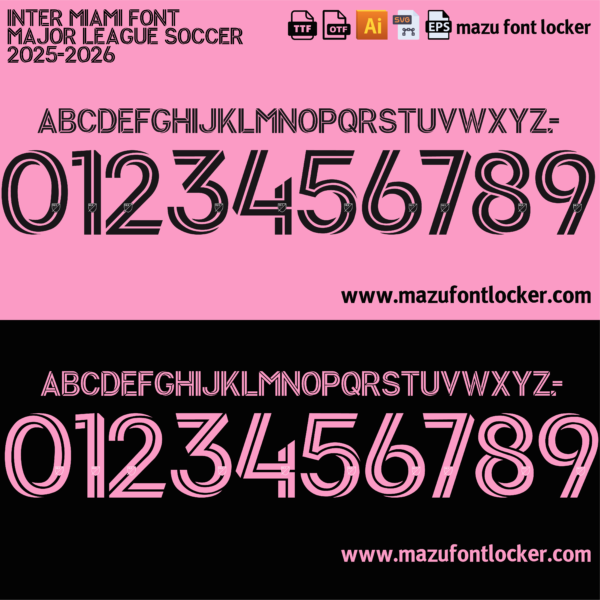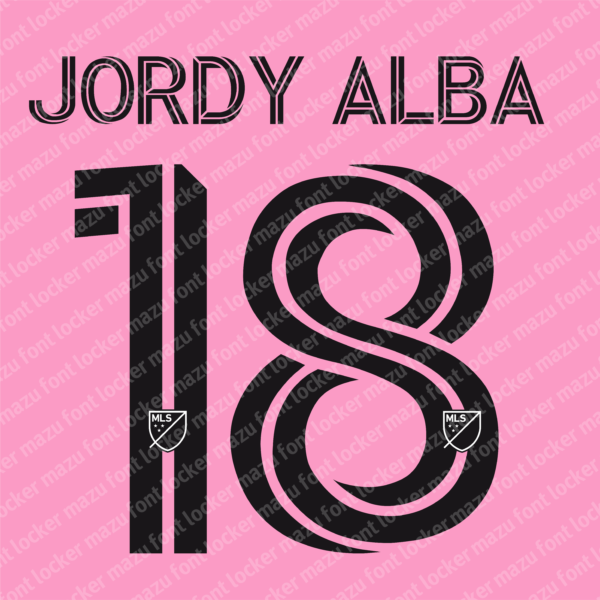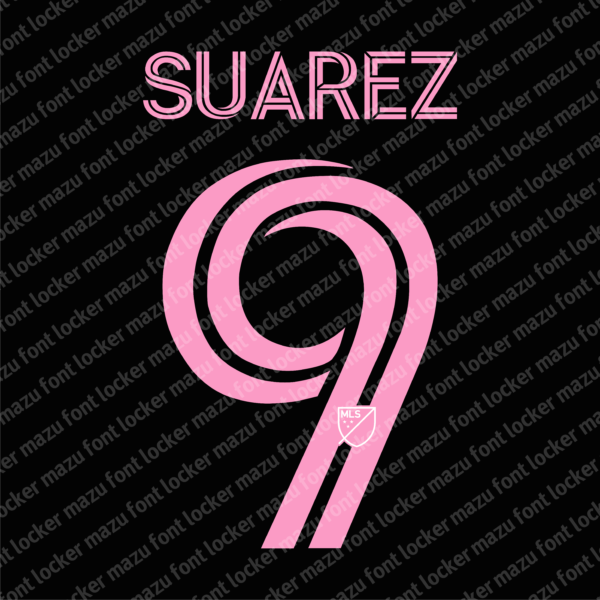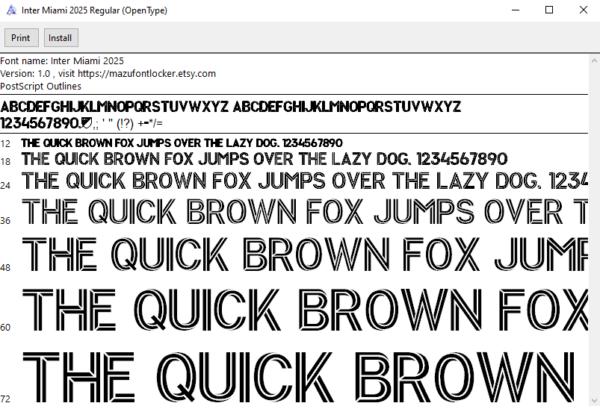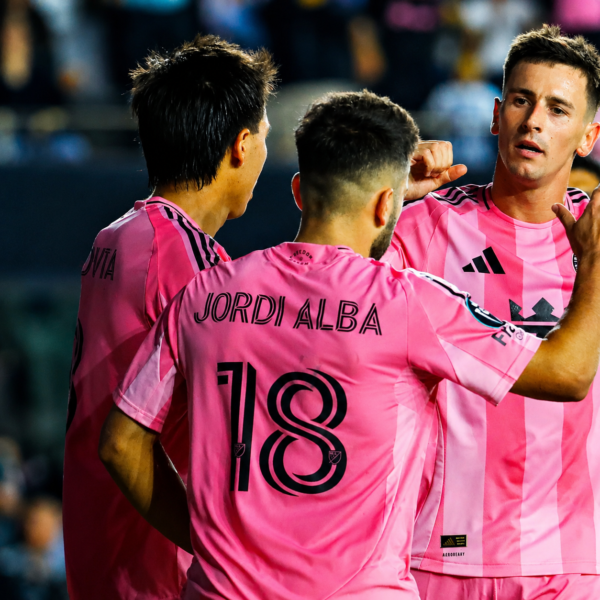
Inter Miami 2025-2026 Font Vector – Epic Messi Masterpiece
Download Inter Miami 2025-2026 Font now and unleash the unstoppable energy of the most exciting team in MLS. This premium Inter Miami 2025-2026 Font perfectly captures the bold, sleek, and ultra-modern typography from Inter Miami’s dominant 2025-2026 season.
Designed with razor-sharp precision, Inter Miami 2025-2026 Font radiates pure power, explosive flair, and the legendary spirit of Lionel Messi and the squad that redefined American soccer. Every letter and number reflects the vibrant pink and black identity, relentless attacking style, and championship mentality that lights up the stadium every matchday.
Inter Miami 2025-2026 Font Vector
🔥 Inter Miami 2025-2026 Font Features
- Authentic 2025-2026 Inter Miami jersey lettering style
The authentic lettering style helps recreate the classic look of the Inter Miami 2025-2026 kit with professional accuracy.
Unlike generic jersey fonts, this set is meticulously designed with an uncompromising focus on absolute authenticity and razor-sharp accuracy. Every intricate detail is faithfully recreated from the original match lettering style used during the Inter Miami 2025-2026 season, empowering designers and collectors to create stunningly realistic football shirt designs that radiate pure authenticity.
This Inter Miami 2025-2026 font vector set is designed for authentic football jersey customization and works perfectly for retro football projects, collector designs, and professional sportswear artwork.